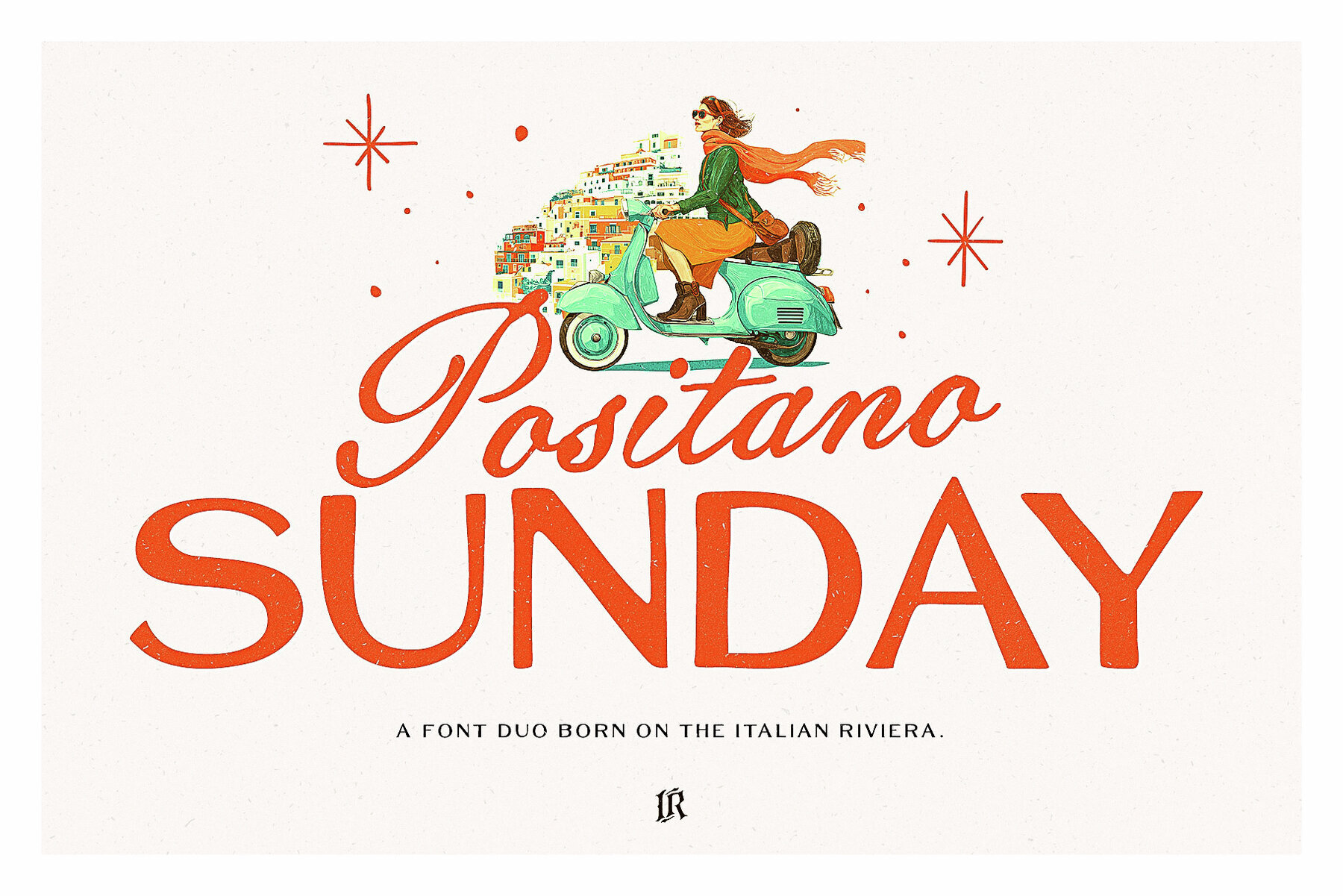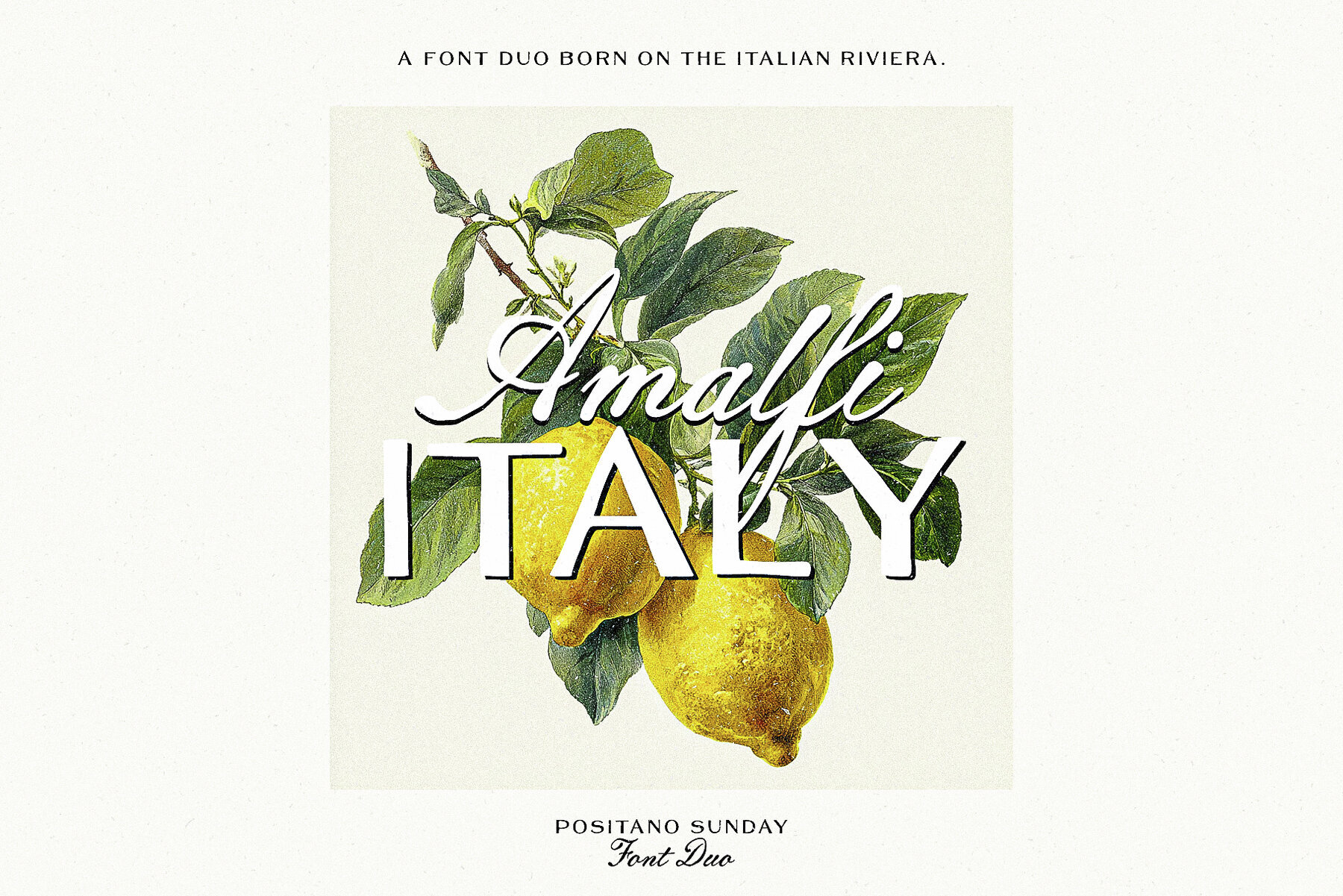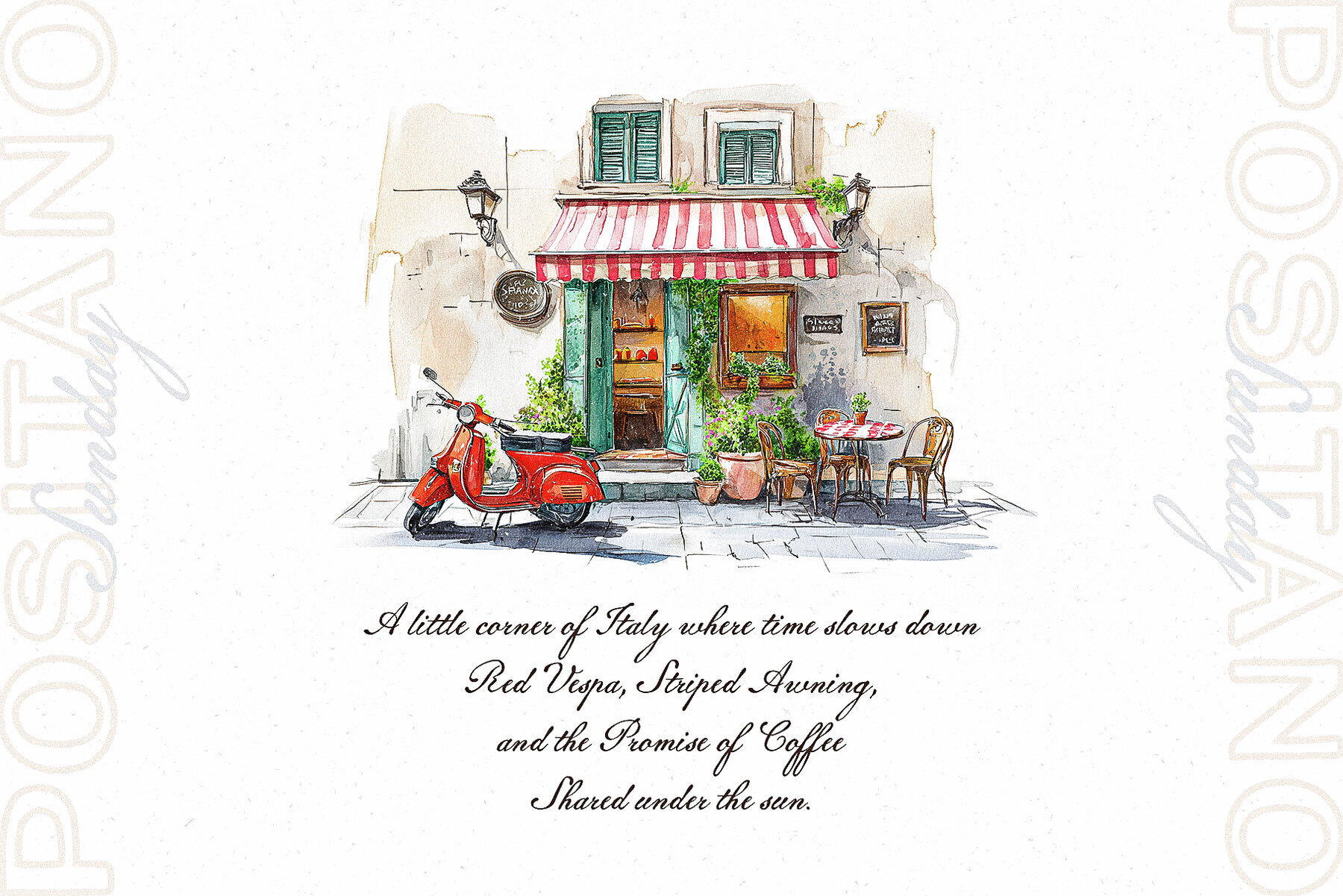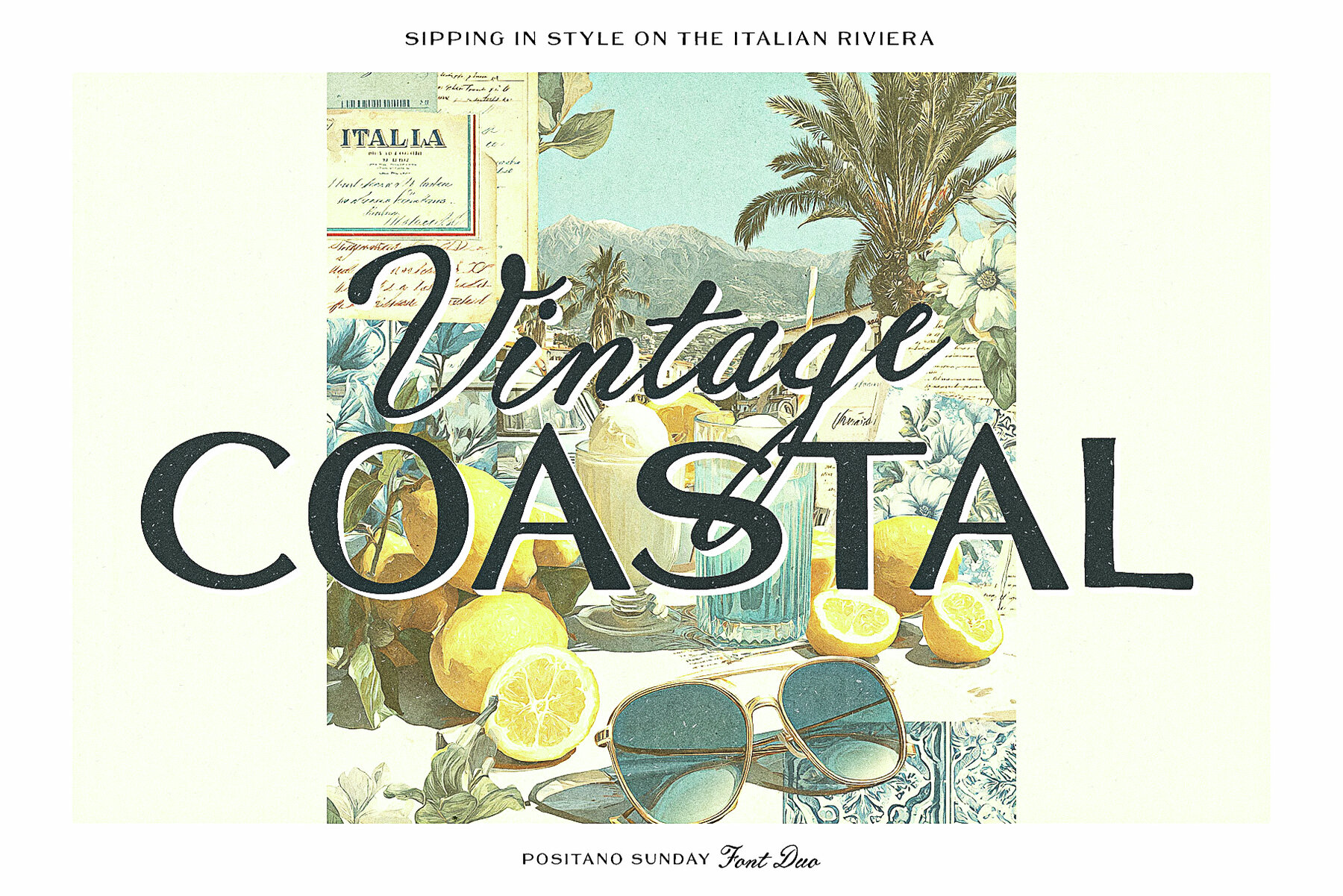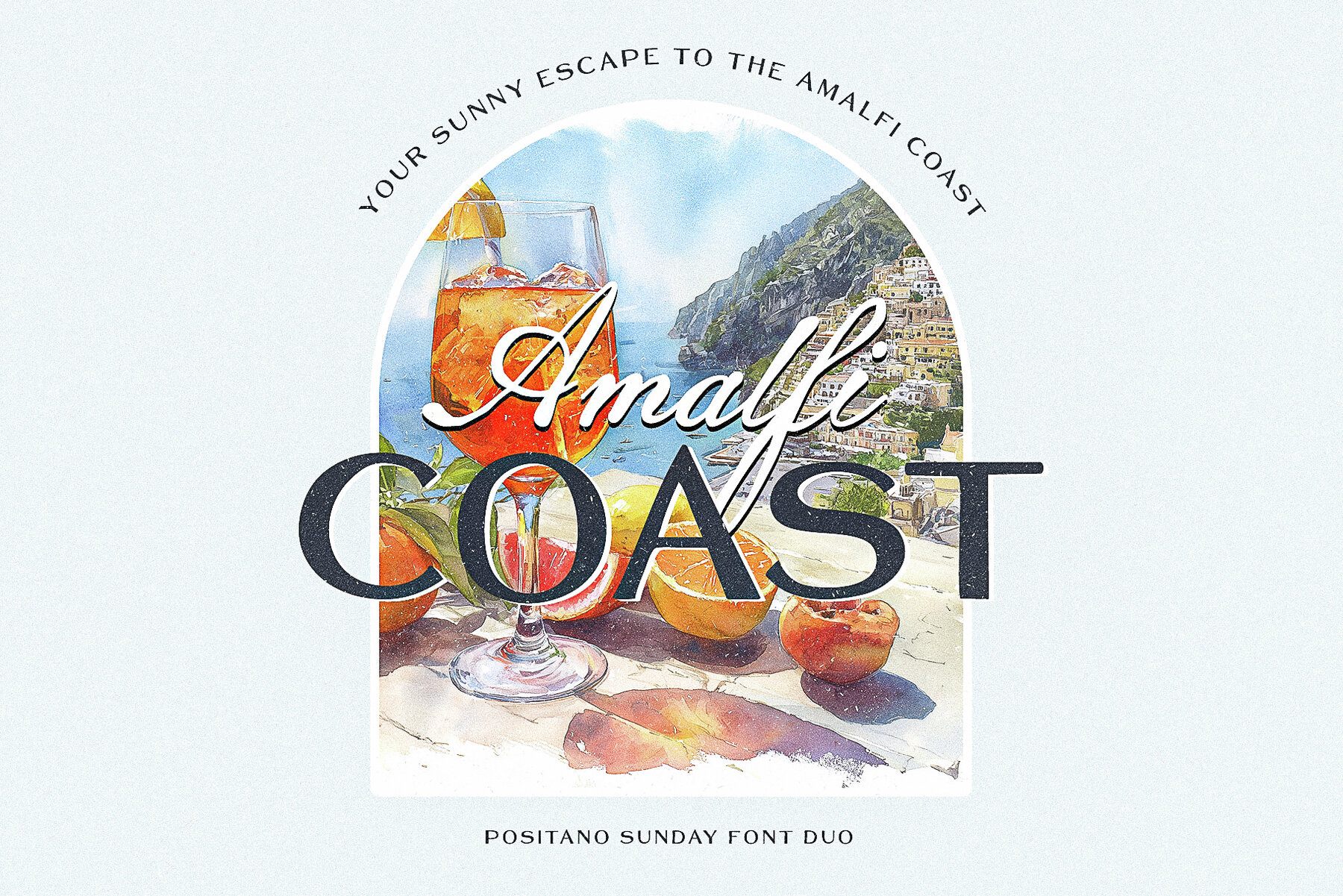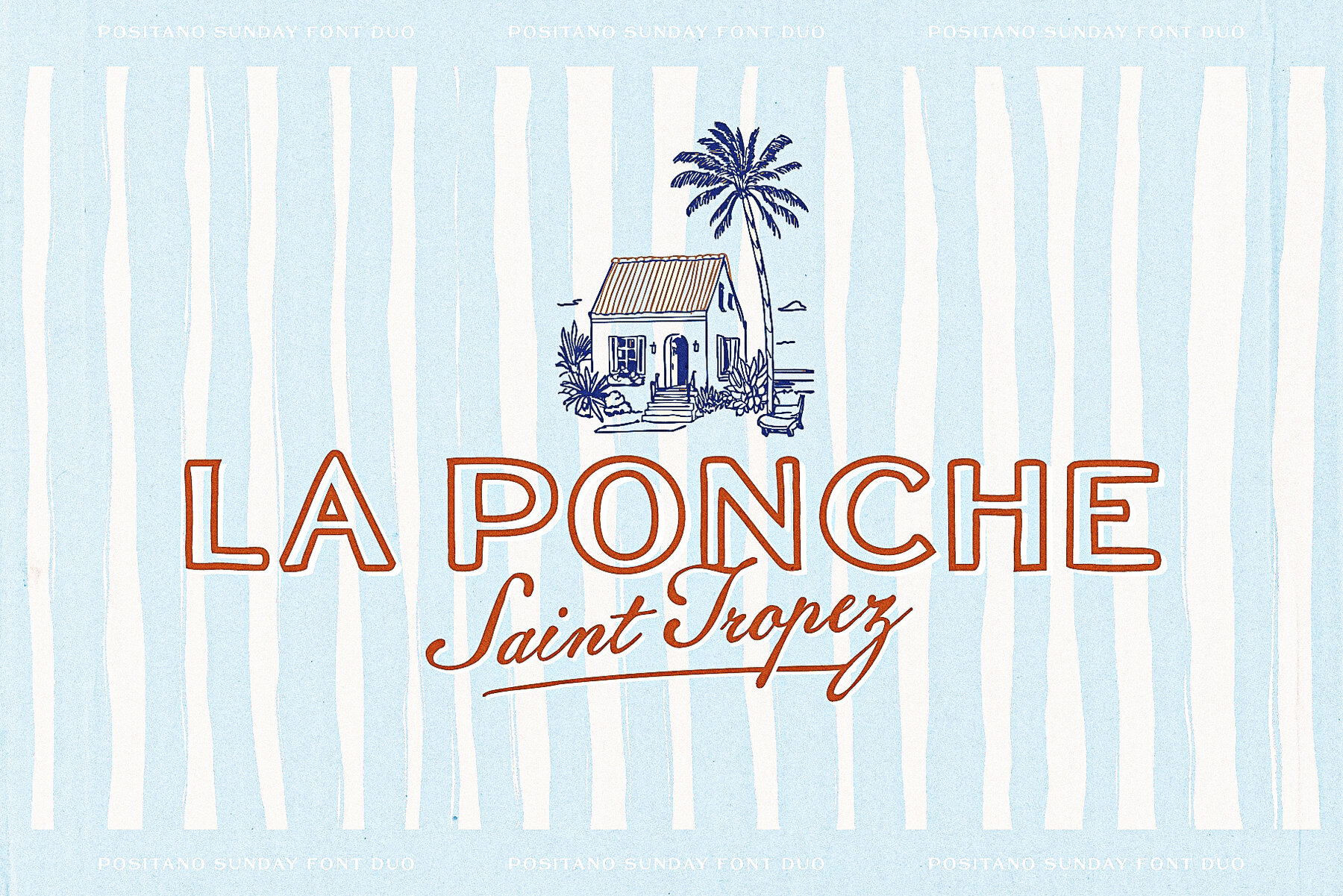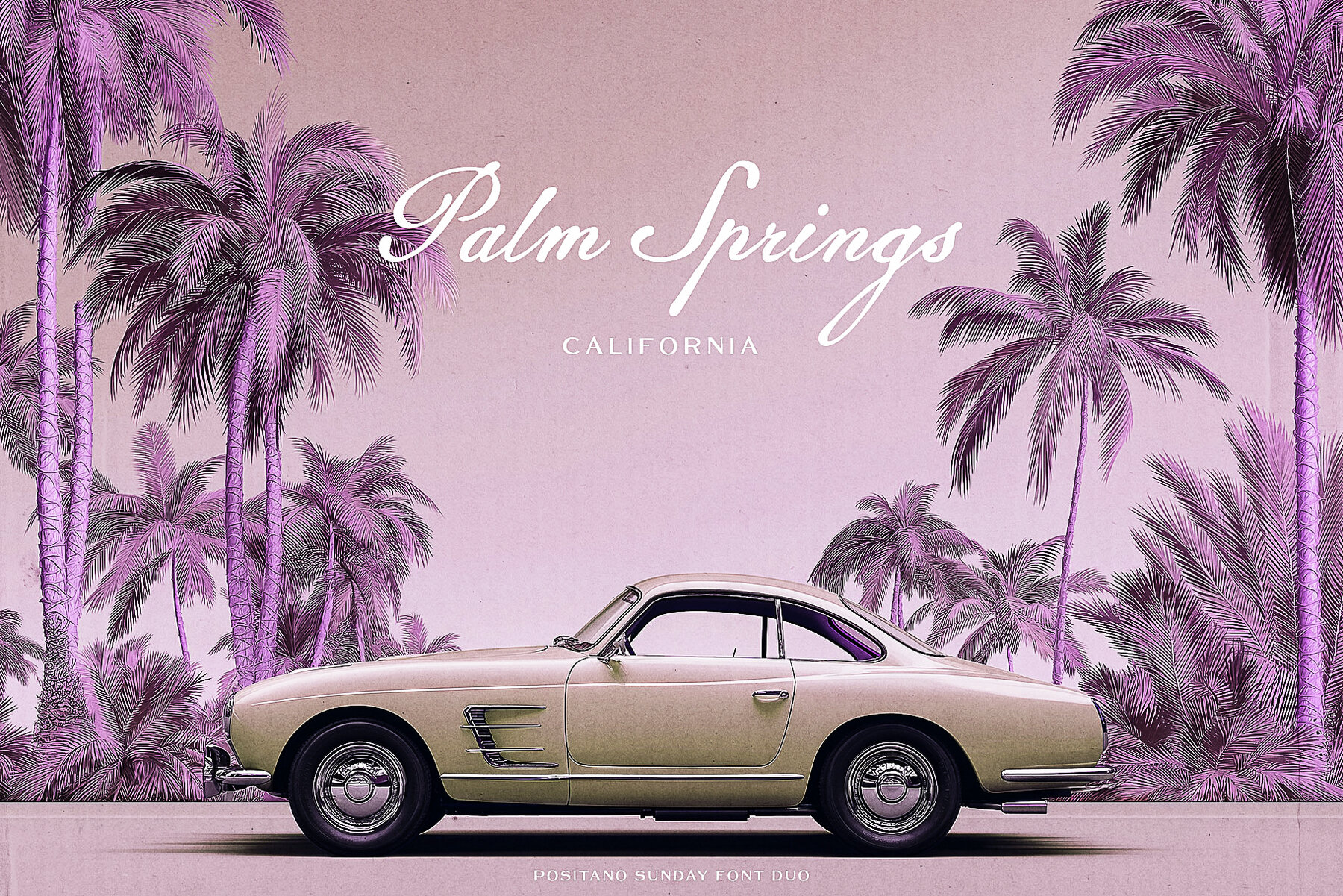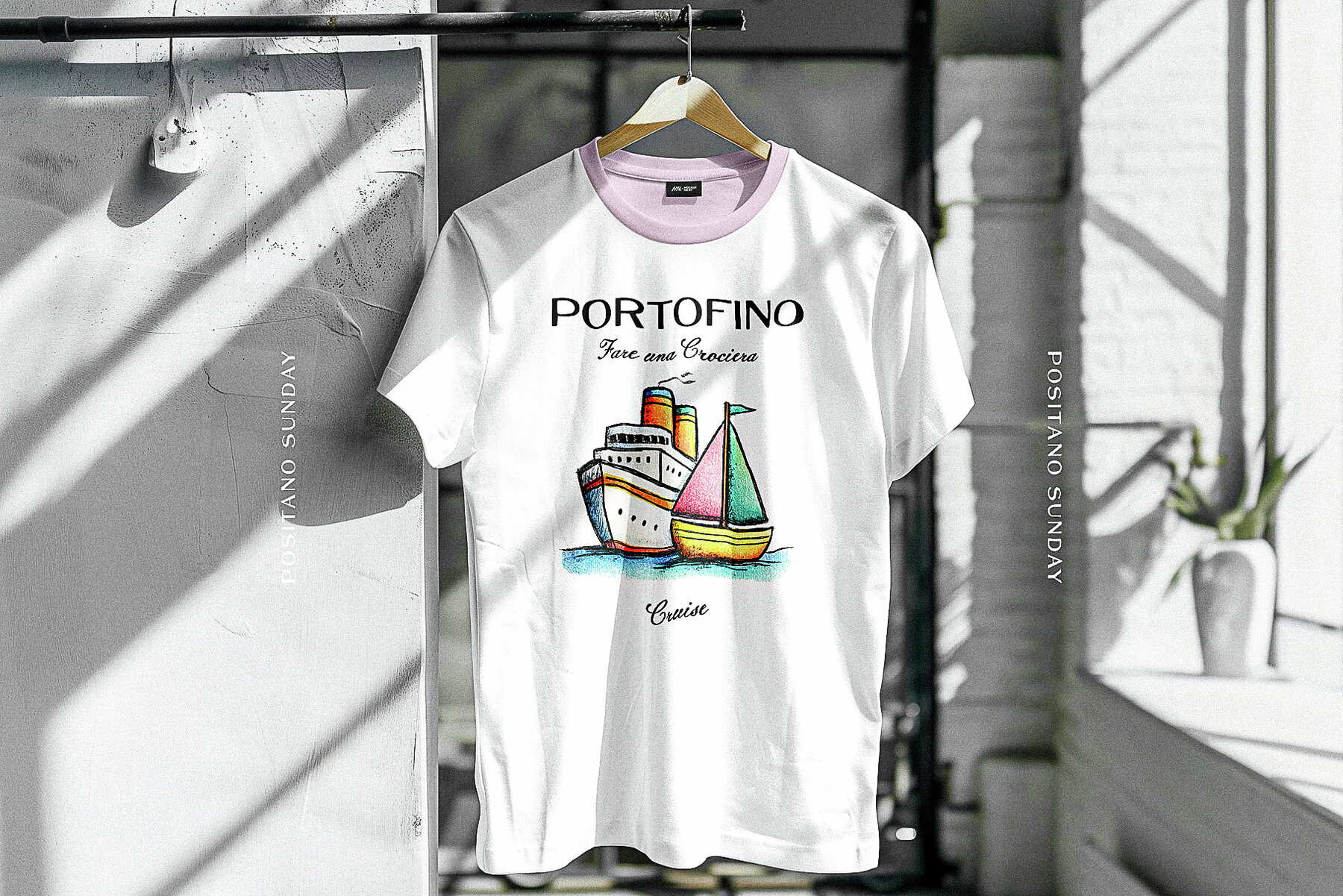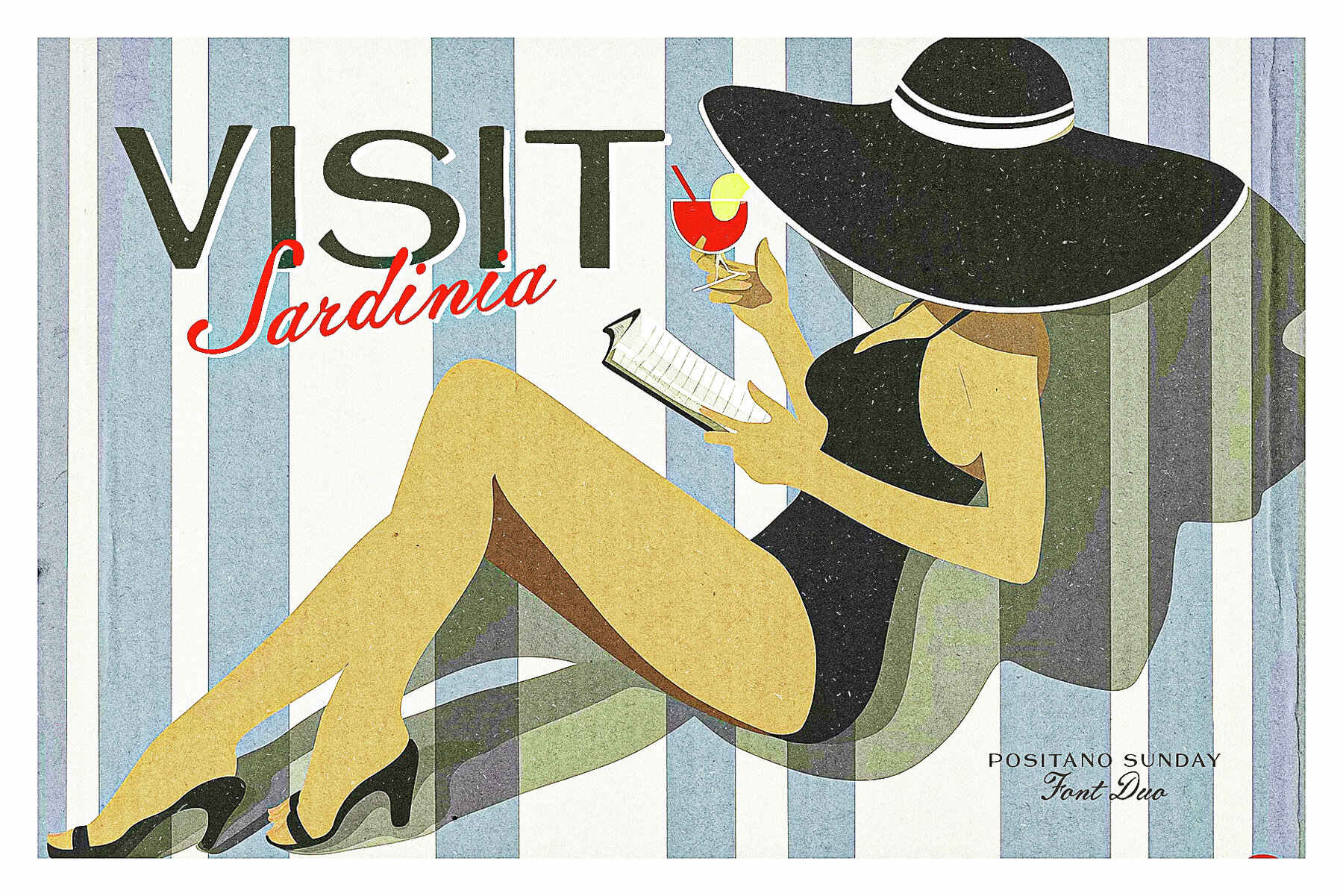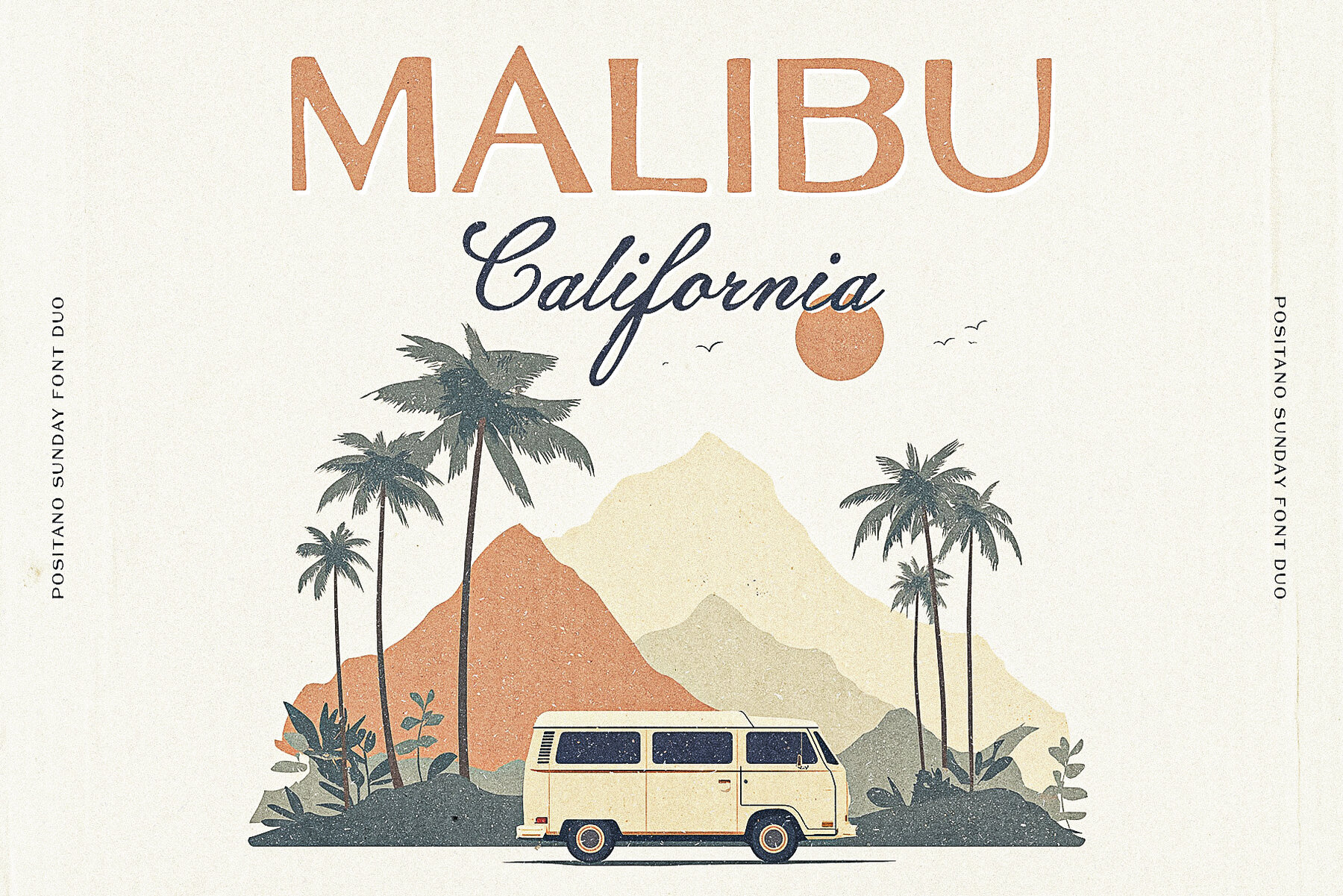
Positano Sunday Font
Positano Sunday Display
Positano Sunday Outline
Positano Sunday Script
Positano Sunday Font Trio is a set of three typefaces inspired by the sunny Italian Riviera, vintage posters, and the charm of Mediterranean cafés and restaurants. This pack blends elegance with playfulness – perfect for branding, packaging, posters, or social media. Positano Sunday captures the carefree spirit of a Sunday on the Italian coast – joyful, relaxed, and effortlessly stylish. With three complementary fonts, you’ll have all you need to create unique, sunny, and memorable designs. What's included: Perfect for